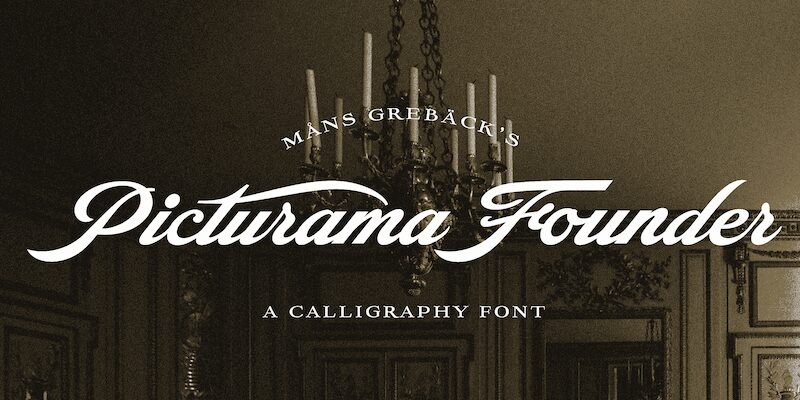
Picturama Founder PERSONAL Regular
Picturama Founder, designed by Mans Greback, is a captivating calligraphy font with a semi-bold weight. With its elegant and flowing strokes, it adds a touch of sophistication to any project.
Perfect for wedding invitations, greeting cards, and luxury branding materials, Picturama Founder brings an air of enchantment and grace. Its versatility also makes it suitable for fashion magazines, beauty blogs, and elegant event posters.
This font effortlessly captures attention and creates a lasting impression with its timeless appeal.